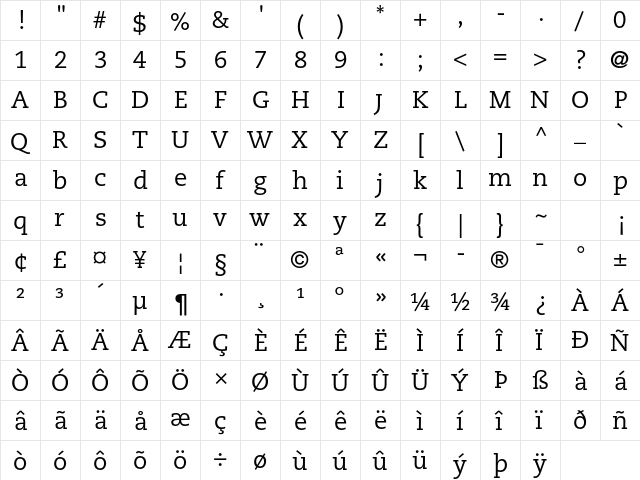
Caecilia LT Std 55 Roman
55 Roman ·  Peter Matthias Noordzij ·
DesignerPeter Matthias Noordzij
Design Context for Caecilia LT Std Typeface
Caecilia LT Std is a composed and adaptable typeface that performs quietly and consistently across a wide range of design contexts. The delicate stroke weight brings airiness and refinement to layouts.